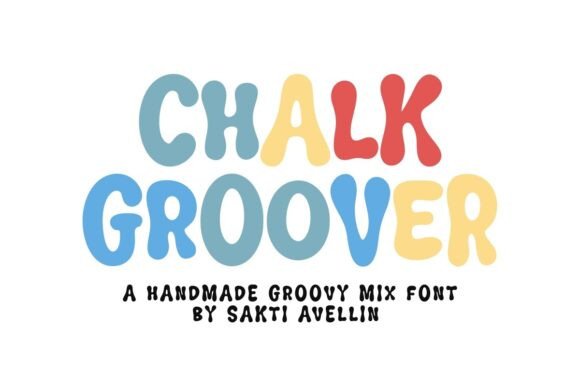
Introducing Chalk Groover: The Ultimate Retro-Groovy Font for Creative Expression
In the world of typography, few fonts manage to capture the essence of creativity and individuality as effectively as Chalk Groover. This artisan-crafted font is a vibrant, retro-groovy masterpiece designed to bring a unique flair to a wide range of creative projects. From t-shirts and greeting cards to coffee mugs and posters, Chalk Groover is the perfect companion for designers looking to infuse their work with a dash of personality and charm.
What Makes Chalk Groover Stand Out?
- Unique Blend of Upper and Lowercase Letters: Chalk Groover boasts a mesmerizing mix of variations by seamlessly intermingling upper and lowercase letters. This distinctive feature allows for a wide range of creative possibilities, making each design project truly one-of-a-kind.
- Versatility at Its Best: Whether you’re working on a casual t-shirt design, a personalized greeting card, or a bold poster, Chalk Groover adapts effortlessly to any project. Its versatile nature makes it an indispensable tool in every designer’s font arsenal.
- Retro-Groovy Aura: The font’s vivid, retro-groovy vibe is infectious, adding a cool factor to any design. It’s perfect for designers looking to evoke a sense of nostalgia and playfulness in their work.
Endless Creative Possibilities with Chalk Groover
Chalk Groover’s versatility knows no bounds. Here are just a few examples of how this incredible font can elevate your design projects:
- T-Shirts and Apparel: Add a personalized touch to t-shirts, hoodies, and other apparel with Chalk Groover’s unique charm.
- Greeting Cards and Stationery: Make your greeting cards, invitations, and stationery designs stand out with the font’s playful and retro vibe.
- Coffee Mugs and Key Chains: Transform everyday items like coffee mugs and key chains into personalized treasures with Chalk Groover’s distinctive style.
- Posters and Signage: Create eye-catching posters and signage that demand attention with the font’s bold and groovy aesthetic.
- Doormats and Home Decor: Even home decor items like doormats can get a personality boost from Chalk Groover’s lively and engaging style.
Tips for Maximizing Chalk Groover’s Creative Potential
To get the most out of Chalk Groover, consider the following design tips:
- Experiment with Color: Chalk Groover’s retro-groovy vibe lends itself well to bright, bold colors. Don’t be afraid to experiment with different color schemes to find the perfect match for your design.
- Mix and Match: Take advantage of the font’s unique blend of upper and lowercase letters by mixing and matching them to create visually interesting text arrangements.
- Keep it Simple: While Chalk Groover is a bold font, sometimes less is more. Use it sparingly to add emphasis to key words or phrases in your design.
Why Choose Chalk Groover for Your Design Projects?
In a world where design trends come and go, Chalk Groover stands out as a timeless and versatile font that can elevate any creative project. Here are a few reasons why Chalk Groover should be your go-to font:
- Uniqueness: Chalk Groover’s distinctive style ensures that your designs will stand out from the crowd.
- Versatility: The font’s adaptability makes it suitable for a wide range of projects, from casual apparel to professional signage.
- Emotional Connection: The retro-groovy vibe of Chalk Groover evokes a sense of nostalgia and playfulness, helping to create an emotional connection with your audience.
Getting Started with Chalk Groover
Ready to add a sprinkle of retro groove to your designs? Here’s how to get started with Chalk Groover:
Chalk Groover is more than just a font – it’s a tool for creative expression. With its unique blend of upper and lowercase letters, retro-groovy vibe, and versatility, Chalk Groover is the ultimate companion for designers looking to add a dash of personality to their work. Whether you’re a seasoned designer or just starting out, Chalk Groover invites you to explore new creative horizons and make your designs truly unforgettable.